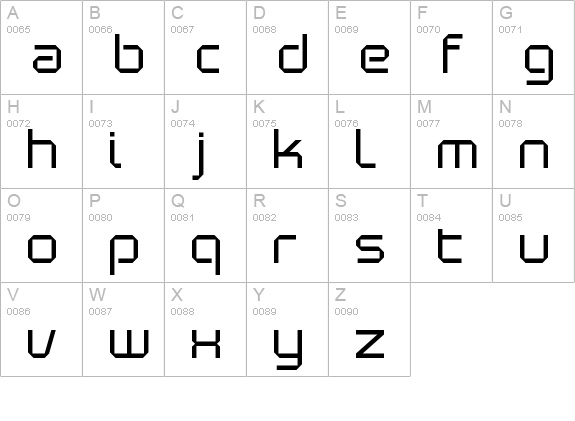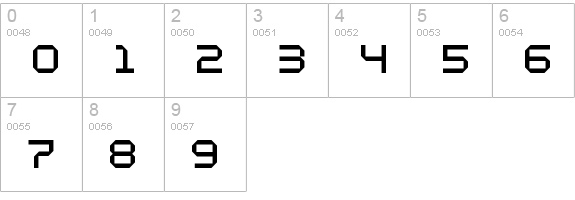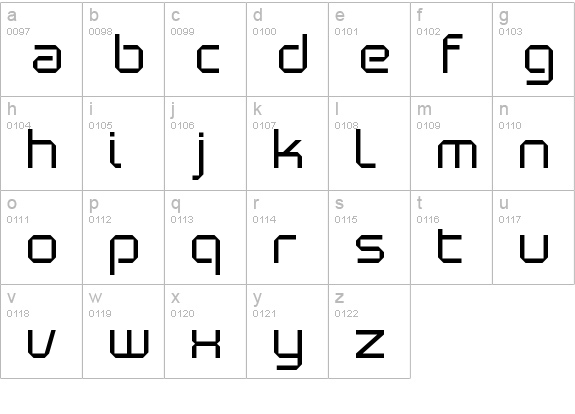
Blutter Slim Font Details
Blutter Slim font is a modern, sleek, and stylish typeface that exudes elegance and sophistication. Its slim and streamlined design makes it perfect for a variety of design projects, from branding to packaging and everything in between. The clean lines and subtle curves of Blutter Slim font give it a contemporary feel that is both eye-catching and versatile. The best part? Blutter Slim font is available for free download at FontsMarket.com, making it accessible to designers and creatives looking to add a touch of sophistication to their projects without breaking the bank. Whether you're designing a logo, creating a poster, or crafting a social media graphic, Blutter Slim font is sure to elevate your design with its unique and refined aesthetic. Don't miss out on the opportunity to enhance your projects with the elegant charm of Blutter Slim font, available for free at FontsMarket.com. Download it today and see the difference it can make in your designs!